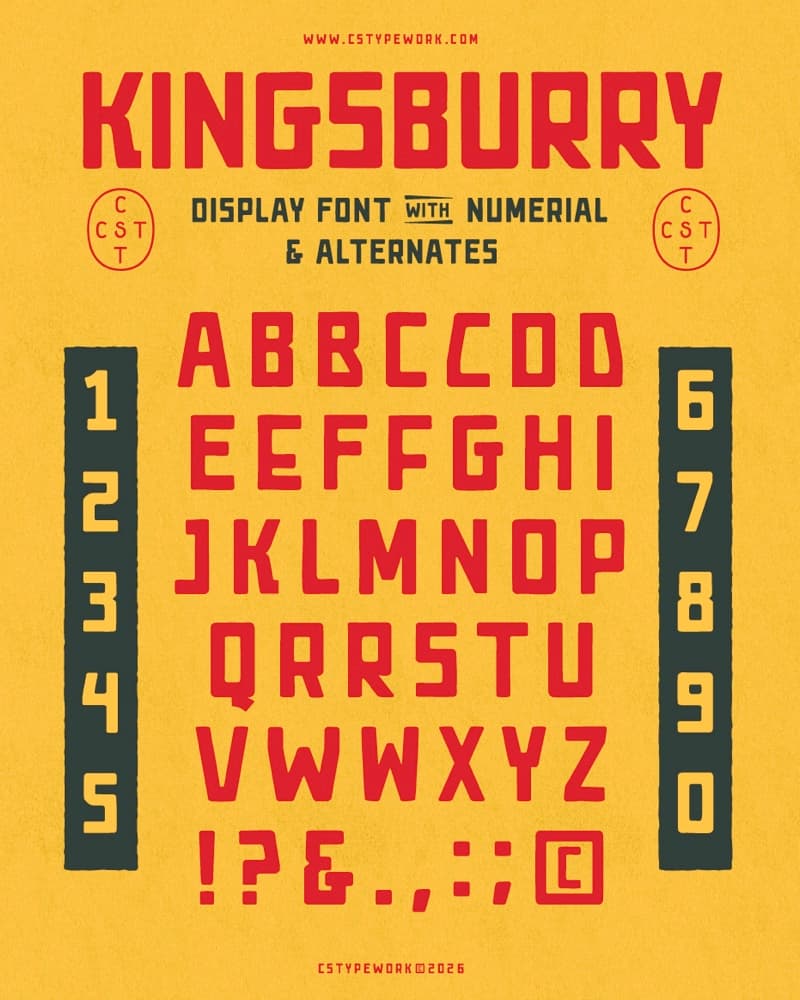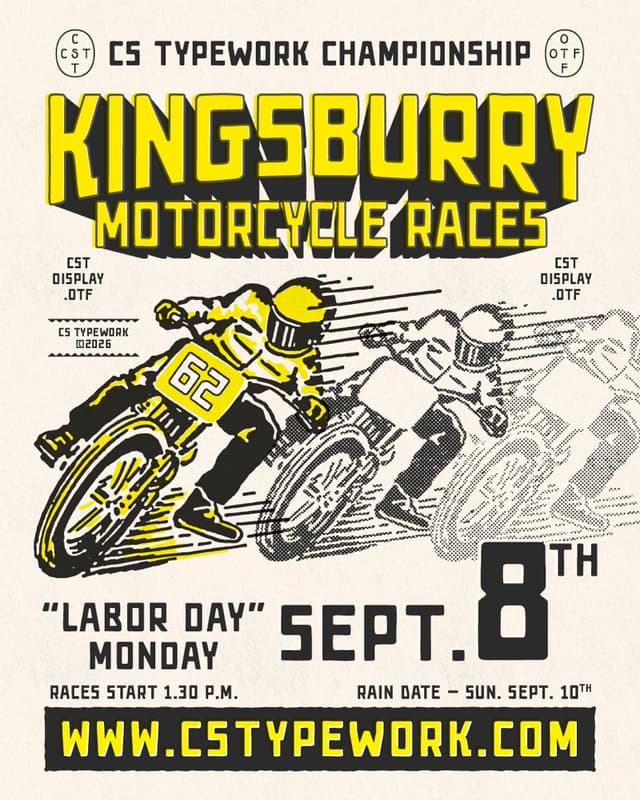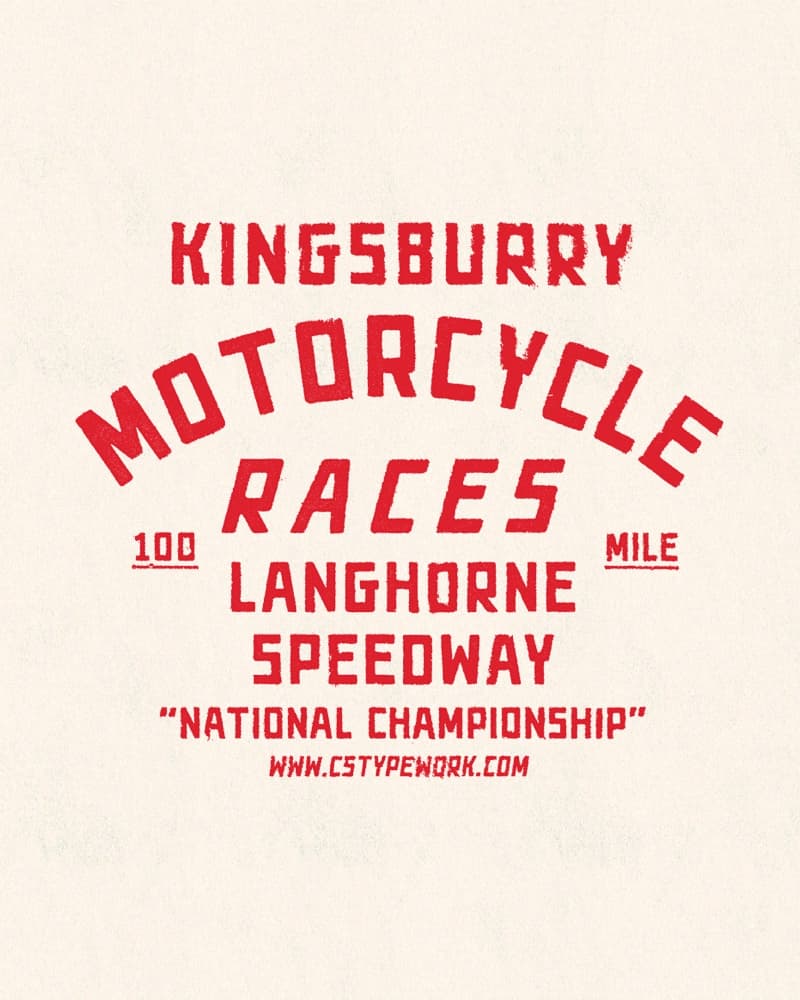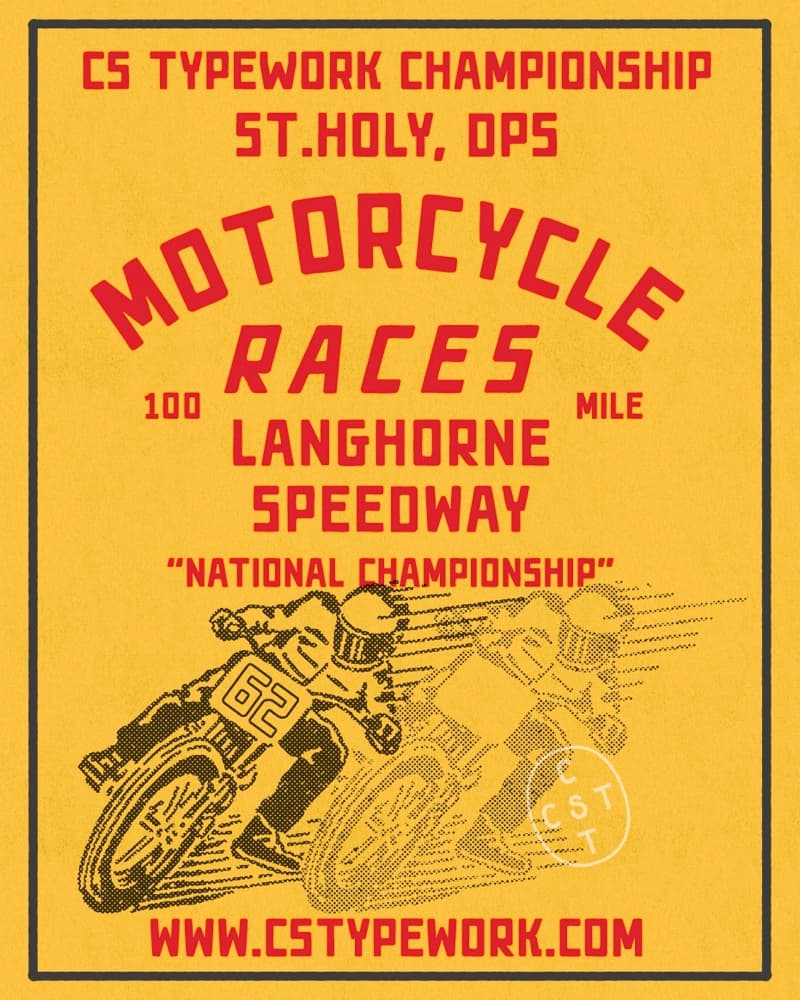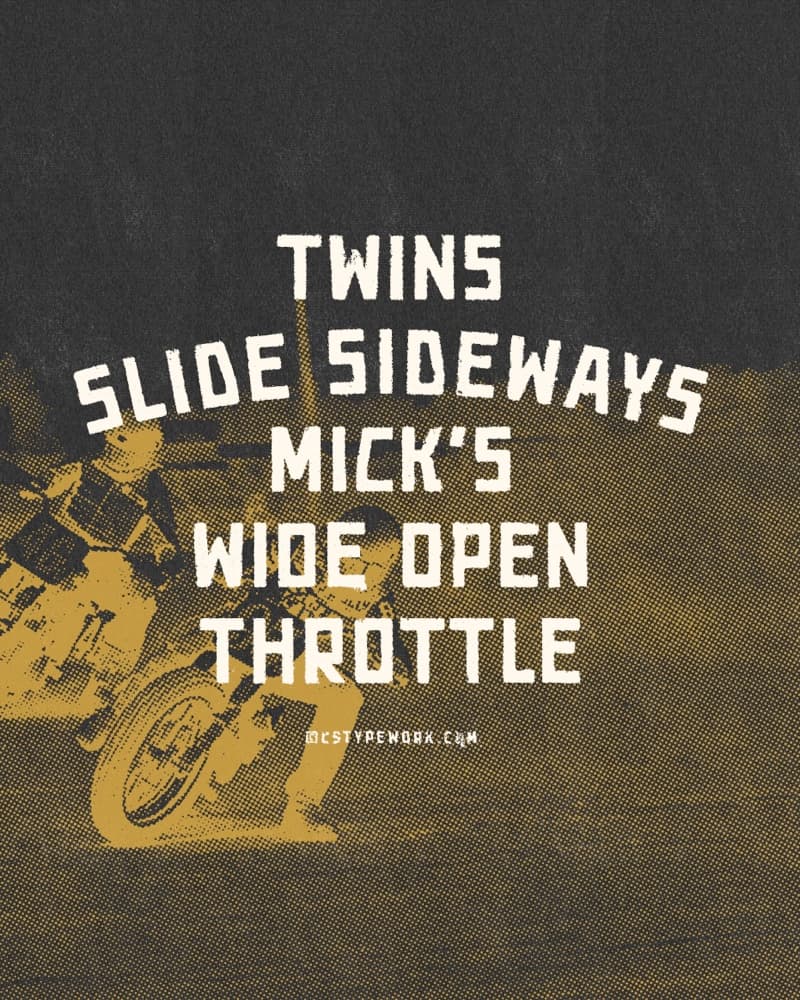
KINGSBURRY CST
KINGSBURRY
Meet Kingsburry, a vintage block letter typeface built with soul, grit, and character.
Inspired by classic hand painted signage and old school motorcycle culture, Kingsburry captures the bold, timeless energy you'll find on garage walls, racing posters, and worn in leather jackets. It carries the strength of traditional block lettering, but with a hand drawn touch that makes it feel alive, imperfect and like it was crafted by hand.
Every curve and edge holds a subtle human feel, giving your designs authenticity and attitude.
Built for those who ride against the ordinary!
Perfect for:
• Vintage motorcycle concepts
• Retro posters
• Apparel & merchandise
• Garage brands
• Custom culture graphics